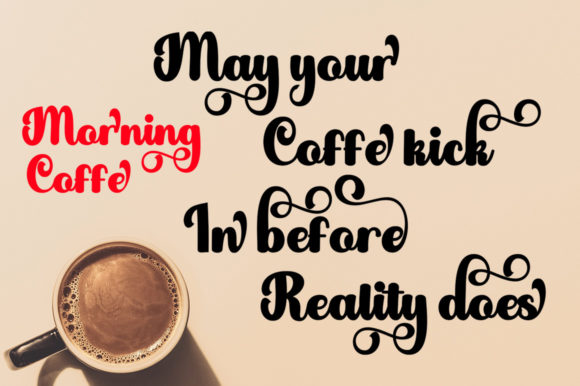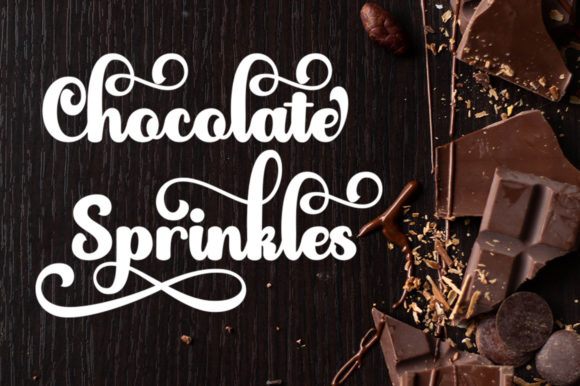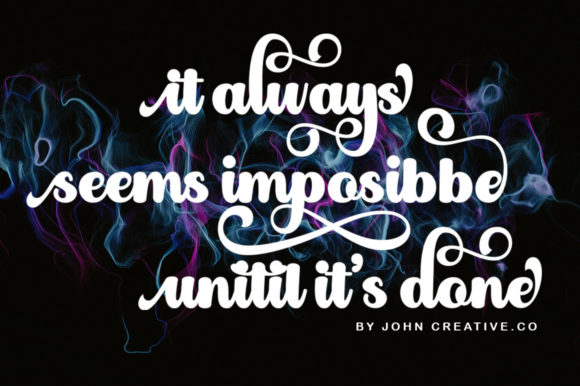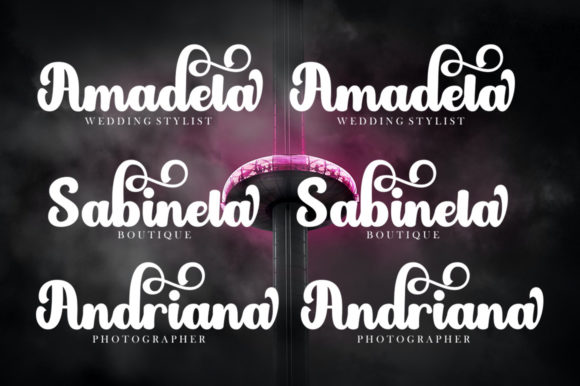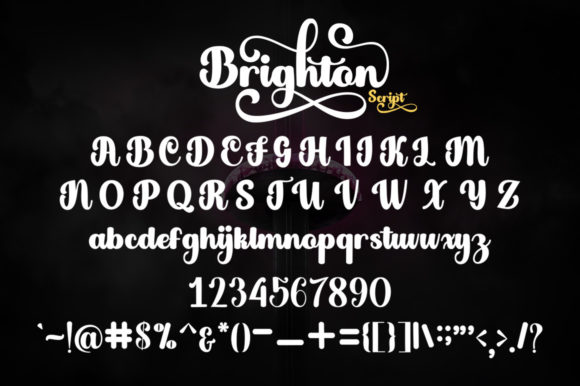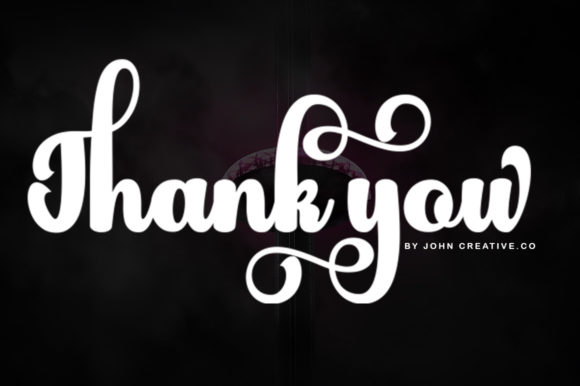
Brighton Script Font: Elevate Your Crafting Ideas with Sophistication and Charm
Are you looking for a font that can add a touch of sophistication and elegance to your crafting projects? Look no further than the Brighton Script Font. This beautiful handwritten font is perfect for delivering any message with confidence, authenticity, and charm. Whether you’re creating cards, branding materials, labels, or any other type of craft project, Brighton Script is the perfect choice.
What Makes Brighton Script Font So Special?
Brighton Script is a carefully crafted font that is designed to bring a sense of luxury and refinement to your projects. Its sophisticated handwritten style is perfect for adding a personal touch to your crafts, making them stand out from the crowd. With Brighton Script, you can create beautiful and unique projects that are sure to impress.
One of the key features of Brighton Script is its PUA (Private Use Area) encoding. This means that you can access all glyphs and swashes with ease, giving you complete creative control over your projects. Whether you want to add a touch of whimsy or create a more formal look, Brighton Script has everything you need to bring your vision to life.
Uses for Brighton Script Font
Brighton Script is an incredibly versatile font that can be used for a wide range of crafting ideas. Here are just a few examples of the many ways you can use this beautiful font:
- Cards: Add a touch of elegance to your greeting cards, invitations, and other paper crafts with Brighton Script.
- Branding: Use Brighton Script to create beautiful and sophisticated branding materials, such as logos, business cards, and letterheads.
- Labels: Create stunning labels for your products, gifts, or storage containers with Brighton Script.
- Journaling: Add a touch of personality to your journal pages with Brighton Script.
- Signage: Use Brighton Script to create eye-catching signs for your business, event, or party.
Benefits of Using Brighton Script Font
There are many benefits to using Brighton Script Font in your crafting projects. Here are just a few:
- Elegance: Brighton Script adds a touch of sophistication and elegance to any project.
- Versatility: This font can be used for a wide range of crafting ideas, from cards to branding materials.
- Easy to Use: Brighton Script is PUA encoded, making it easy to access all glyphs and swashes.
- Unique: With Brighton Script, you can create unique and eye-catching projects that stand out from the crowd.
Tips for Using Brighton Script Font
Here are a few tips for getting the most out of Brighton Script Font:
- Experiment with Different Sizes: Brighton Script looks great in a variety of sizes, from small and delicate to large and bold.
- Play with Swashes: Use the swashes and glyphs to add a touch of personality to your projects.
- Mix and Match: Combine Brighton Script with other fonts and graphics to create unique and eye-catching projects.
- Have Fun: Don’t be afraid to experiment and try new things with Brighton Script.